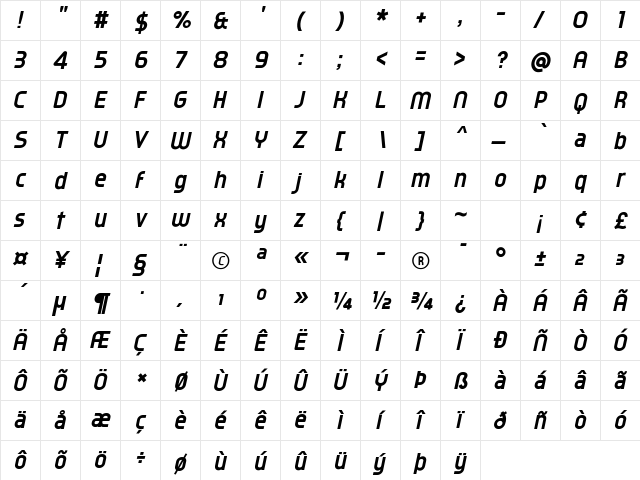
Typo Oval Demo Bold Italic Font Preview
| Foundry | StudioTypo |
| Designer | Mehmet Abac |
Design Context for Typo Oval Demo Typeface
Typo Oval Demo takes a measured approach to typography — its balanced proportions and neutral character make it a reliable workhorse for both digital and print work. Its italic angle brings a sense of urgency and motion to the letterforms. The heavy weight commands attention and anchors typographic hierarchies.
Pro Tip: Try Typo Oval Demo for annotation and caption copy alongside an upright companion — the contrast in angle creates a dynamic but ordered typographic system.